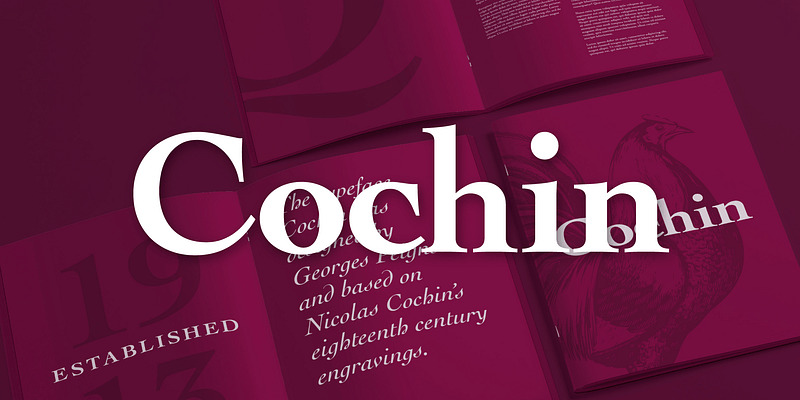
Georges Peignot designed Cochin based on copper engravings of the 18th century and Charles Malin cut the typeface in 1912 for the Paris foundry Deberny & Peignot. The font is named after the French engraver Charles Nicolas Cochin (1715–1790) although its style had little to do with that of the copper artist’s. The font displays a curious mix of style elements and could be placed as a part of the typographical Neorenaissance movement. Cochin is especially large and wide and was very popular at the beginning of the 20th century.